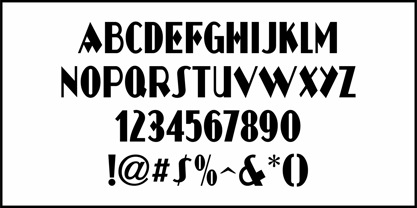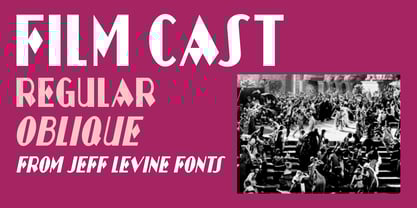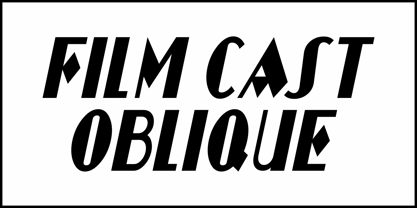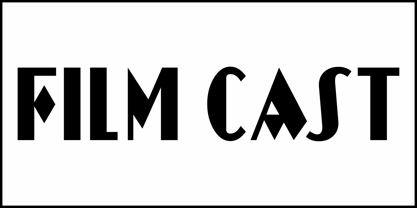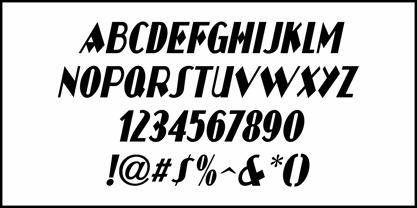
Film Cast JNL
by Jeff Levine
While the hand lettered main title on a poster for the 1928 silent film "Easy Virtue" inspired one type design (Hollywood Days JNL), the names of the cast members done in a different style inspired another.
This bold, condensed sans serif design with early Art Deco influences is also hand lettered.
Now know as Film Cast JNL, it's available in both regular and oblique versions.